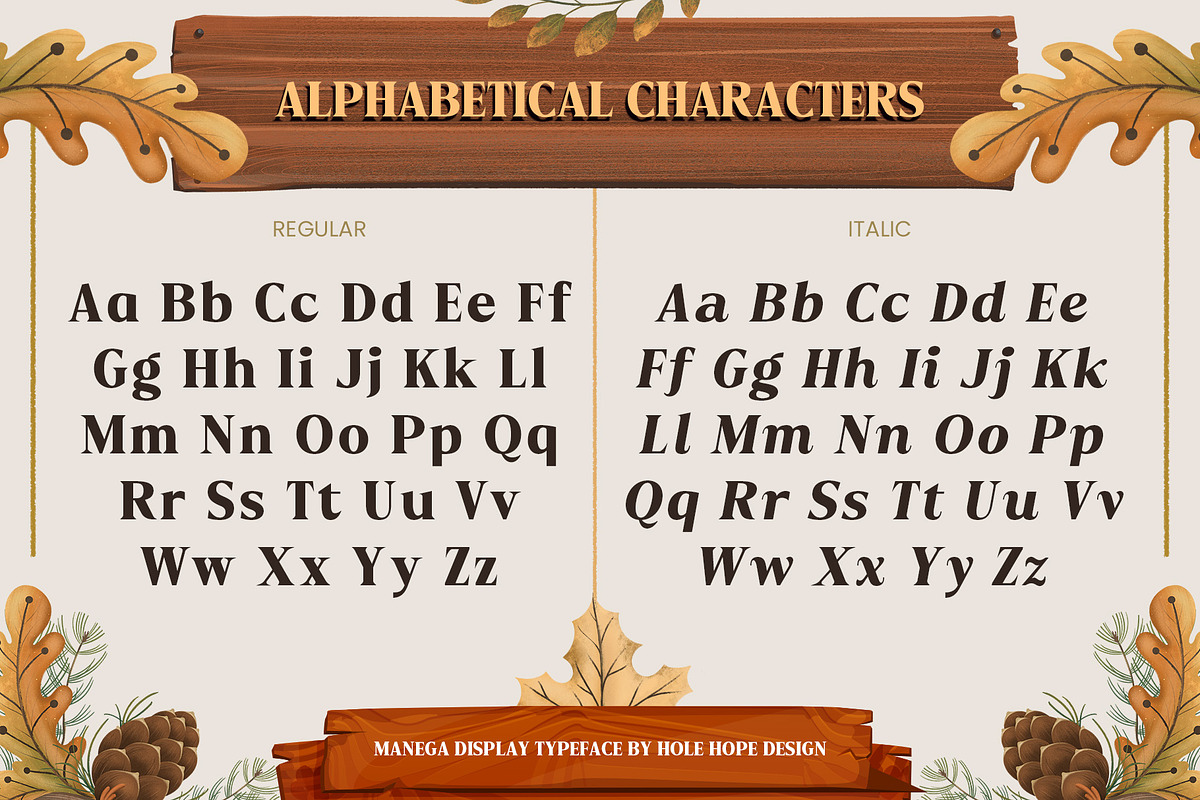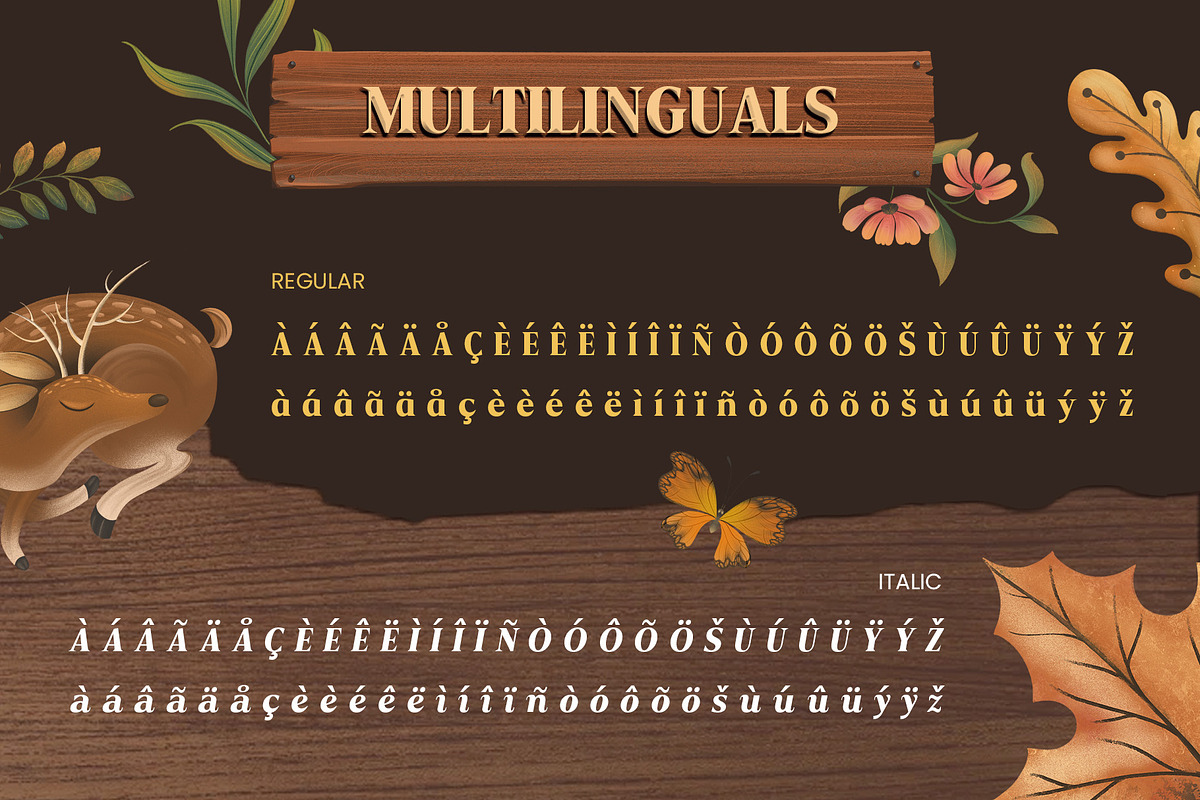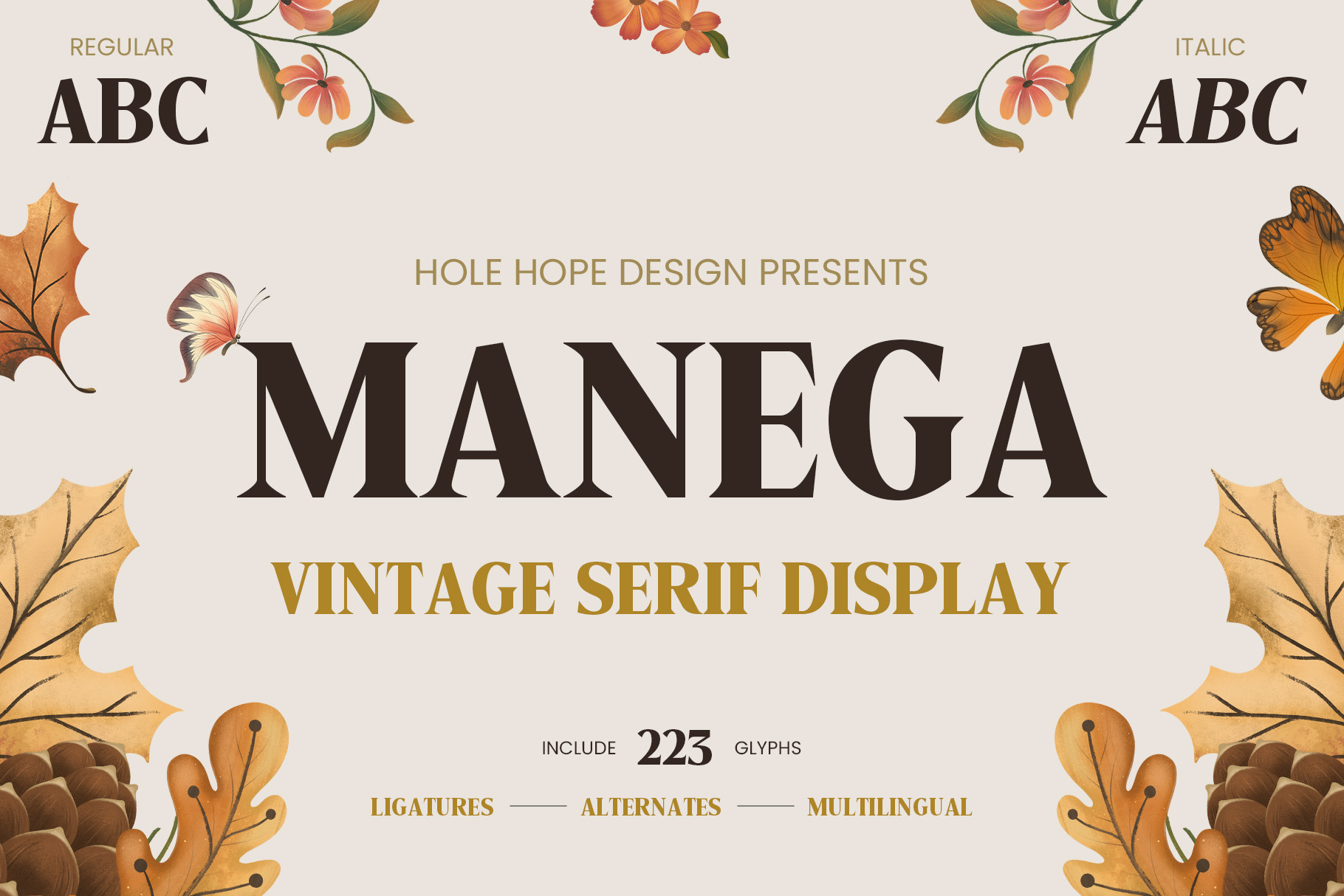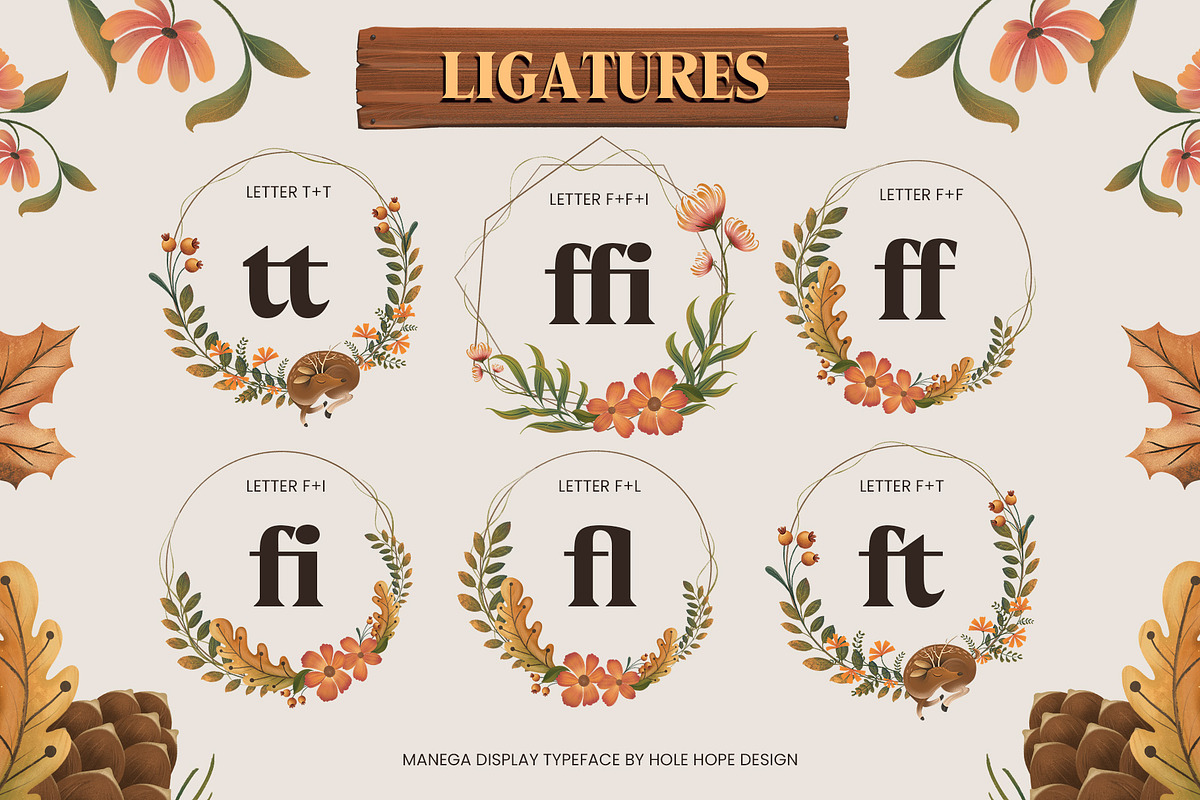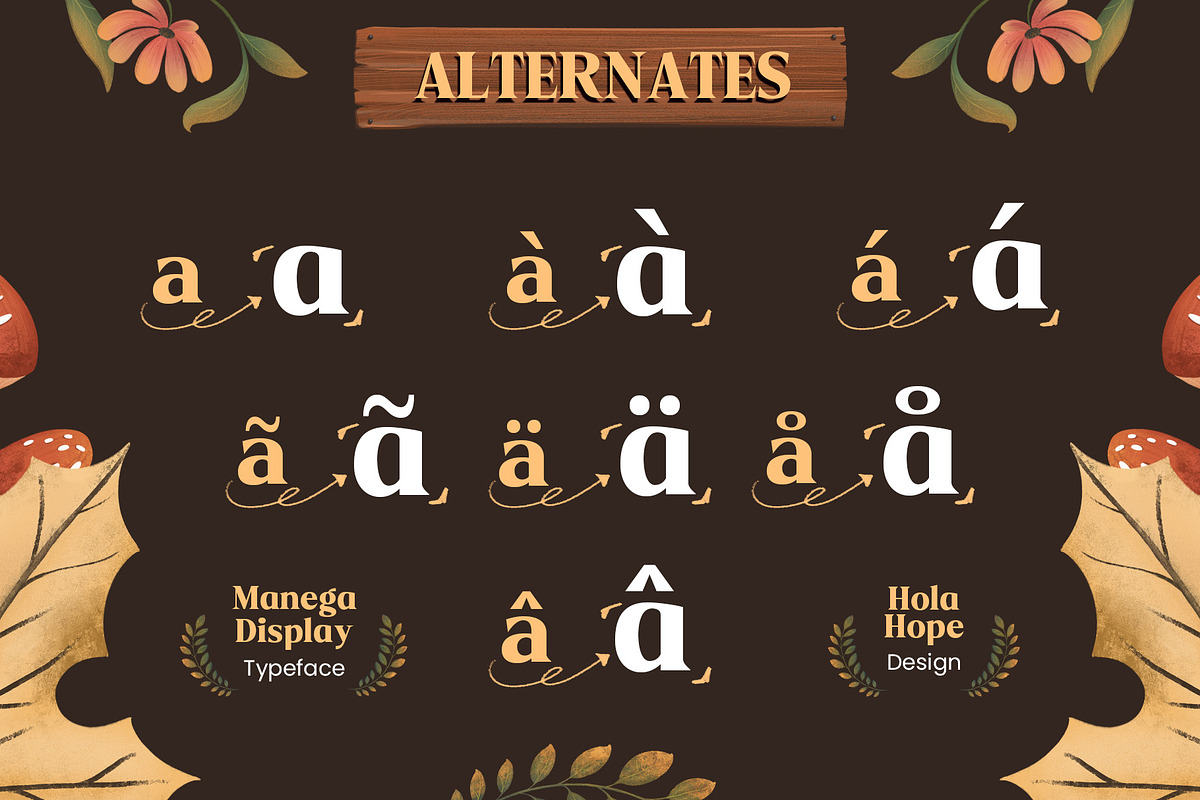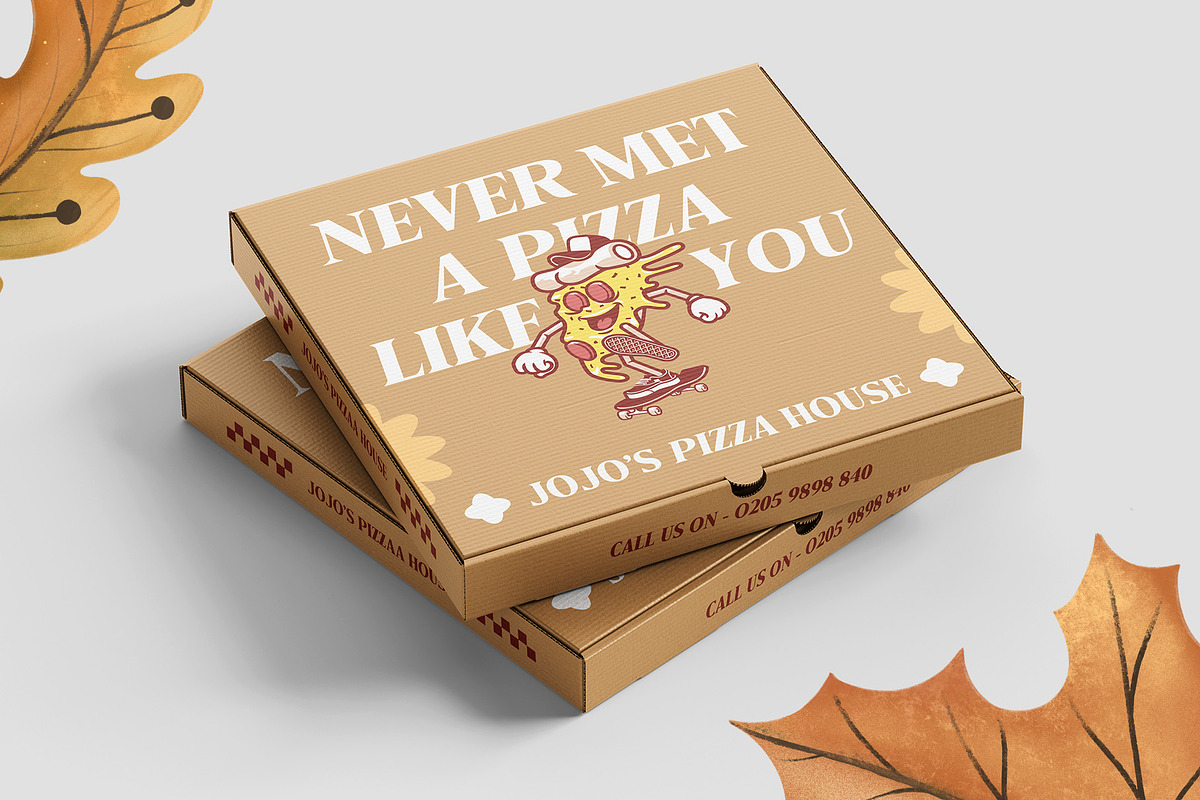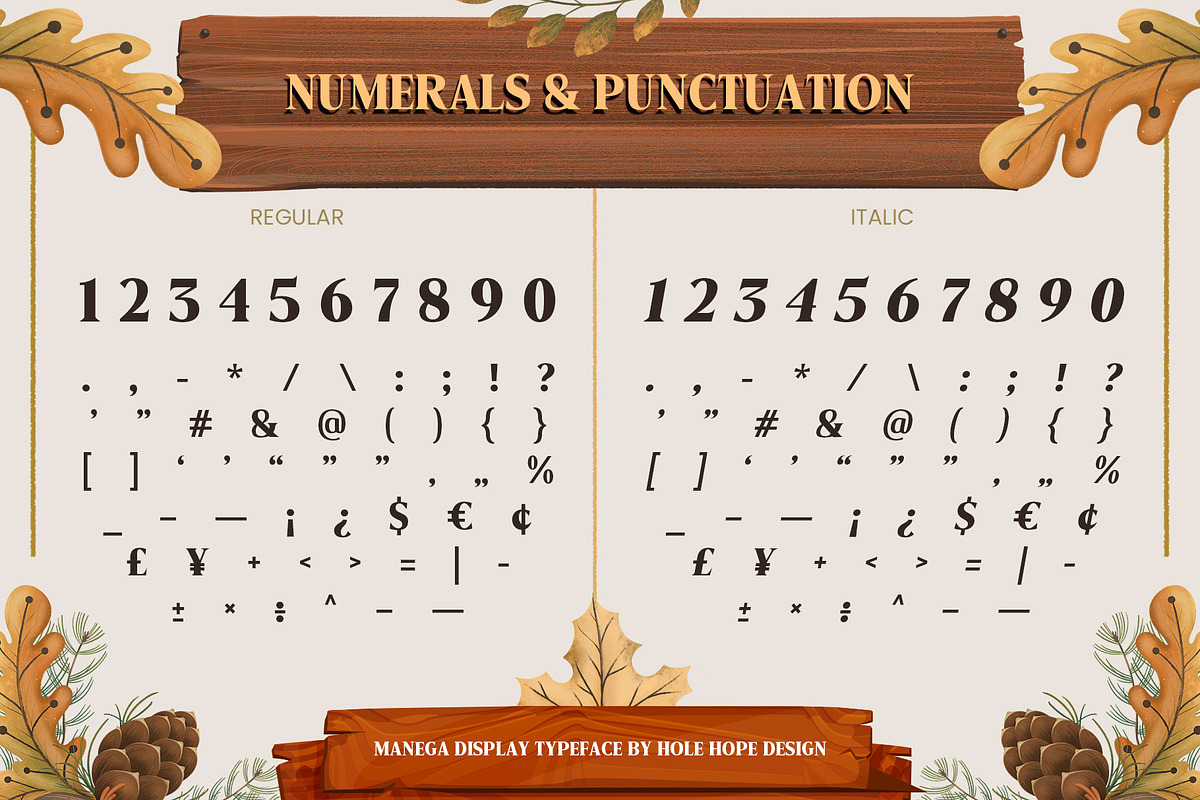
Manega | Vintage Serif Display Font
Manega is a timeless and elegant font inspired by classic typefaces, perfect for bringing a touch of vintage charm to your Thanksgiving designs. Its sophisticated, serif letterforms blend nostalgia with a modern twist, making it ideal for invitations, menus, and seasonal decor. With subtle details and a warm, welcoming feel, Manega evokes the spirit of gratitude and celebration, making your projects stand out during the festive season. Whether for print or digital use, this font adds a refined yet rustic vibe to all your holiday creations.
- Character Set (Uppercas & Lowercase)
- Alternates “a”